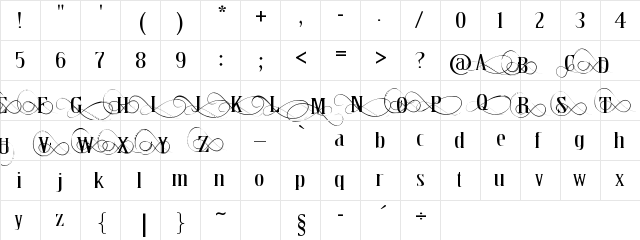
Thron Demo Regular
Design Context for Thron Demo Typeface
Thron Demo is a composed and adaptable typeface that performs quietly and consistently across a wide range of design contexts.